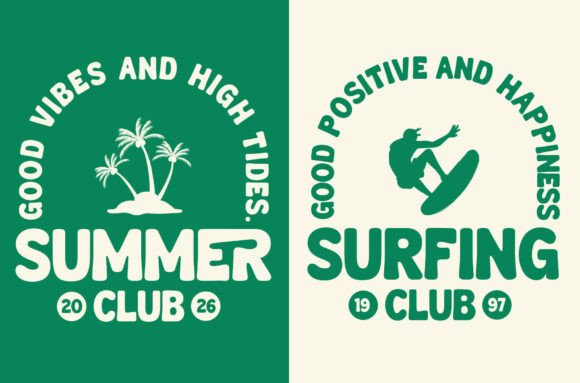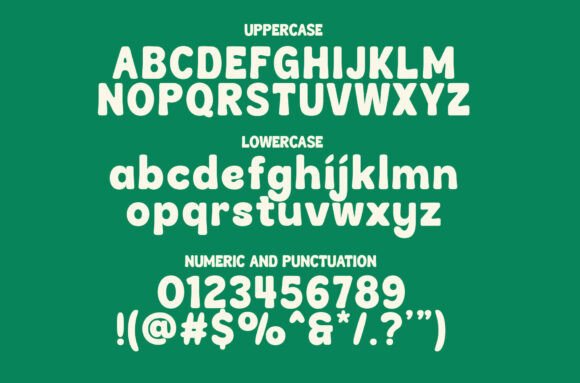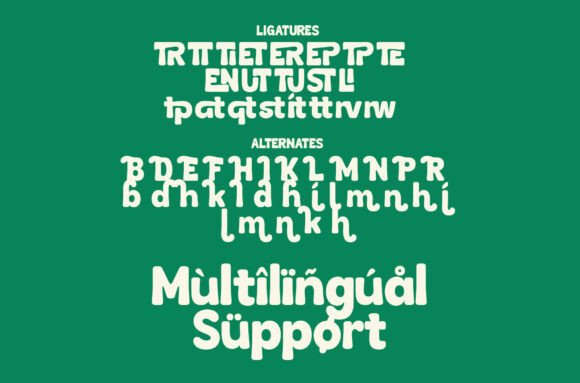
Introduction to Naste Font
As a designer, there’s nothing quite like the thrill of finding the perfect font to bring a creative project to life. Whether you’re working on a logo, poster, or social media graphic, the right typeface can make all the difference. And if you’re looking for a font that’s guaranteed to make a statement, look no further than the Naste Font.
With its bold, chunky shapes and soft rounded corners, the Naste Font is a true showstopper. Its playful, retro personality is inspired by the visual aesthetics of the 70s to 90s, making it the perfect choice for designers who want to add a touch of nostalgia to their work. And with its high-quality design and transparent background, this font is a valuable resource for any creative project.
But what really sets the Naste Font apart is its versatility. Whether you’re working on a free download or a high-end design, this font is sure to deliver a strong and eye-catching appearance that’s perfect for a wide range of applications.
Key Features of Naste Font
- Unique, modern design with a transparent background, making it easy to customize and layer with other design elements.
- Designed to be highly legible, with clear and crisp typography suitable for various design applications, from print to digital media.
Honest Review: Naste Font
As a designer, I’m always on the lookout for high-quality design resources to elevate my creative projects. Recently, I stumbled upon the Naste Font, and I’m excited to share my honest review with you.
- ✨ Unique and stylish design: The Naste Font boasts a distinctive look that’s perfect for adding a touch of sophistication to your designs.
- ⚠️ Limited font styles: While the Naste Font is stylish, it’s available in a limited number of font styles, which might not be ideal for projects that require multiple font options.
- ⚠️ Not suitable for body text: Due to its unique design, the Naste Font might not be the best choice for body text, as it can be difficult to read.
Overall, the Naste Font is a great design resource for creative projects that require a touch of elegance. While it has some limitations, its unique design and free download make it a valuable addition to any designer’s toolkit.
Common Use Cases for Naste Font
Naste Font is commonly used in creative projects, such as social media graphics, presentations, and marketing materials. It’s also a great choice for anyone looking for a high-quality font with a transparent background.